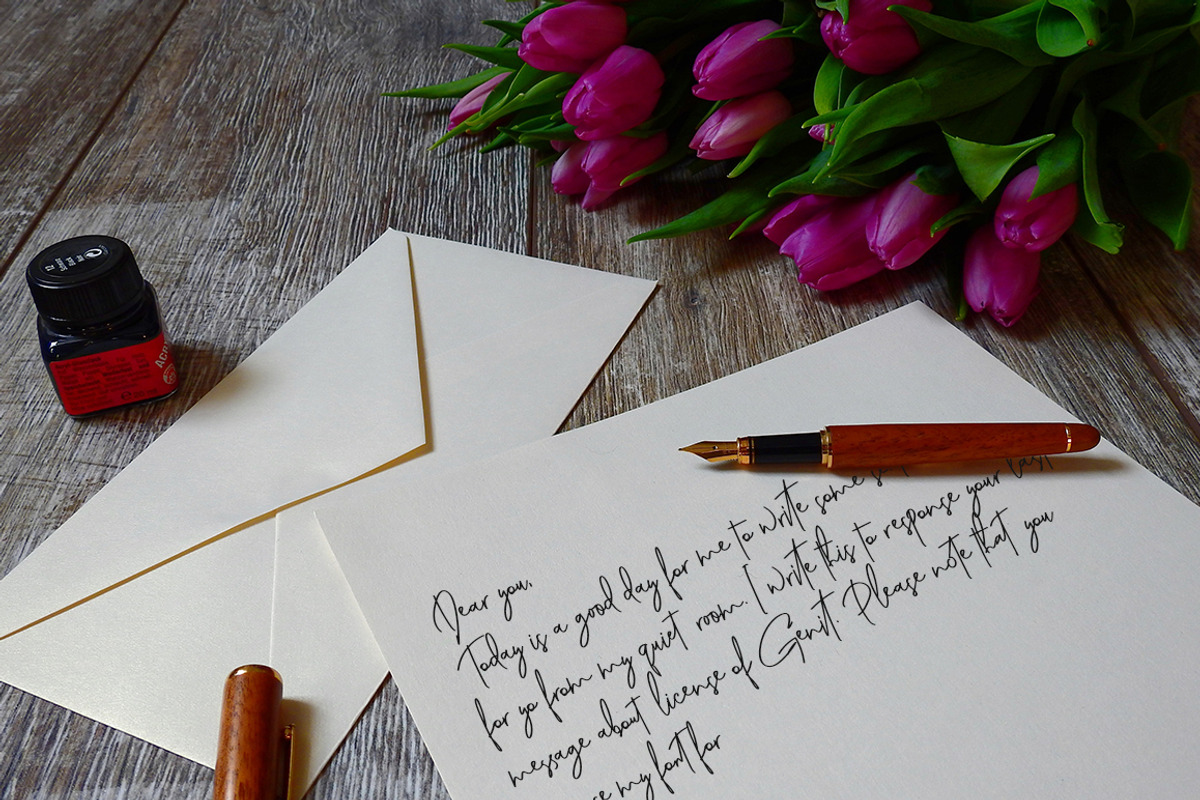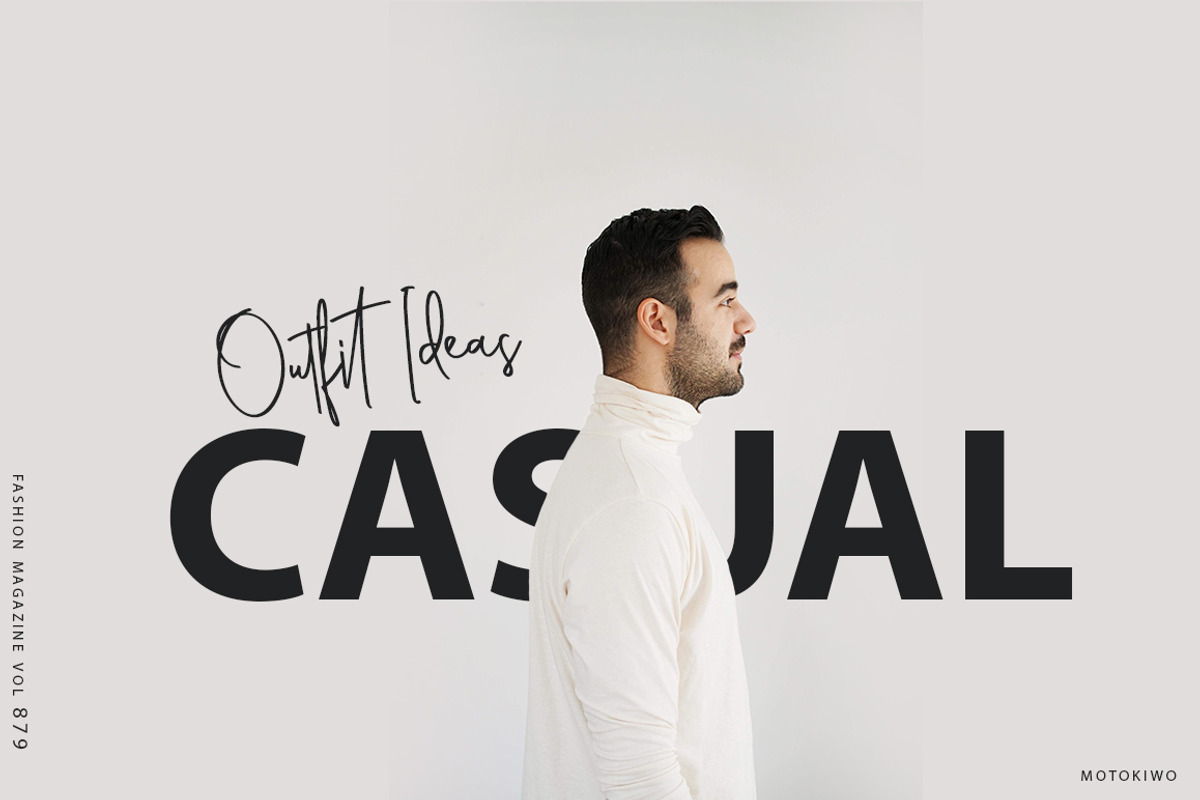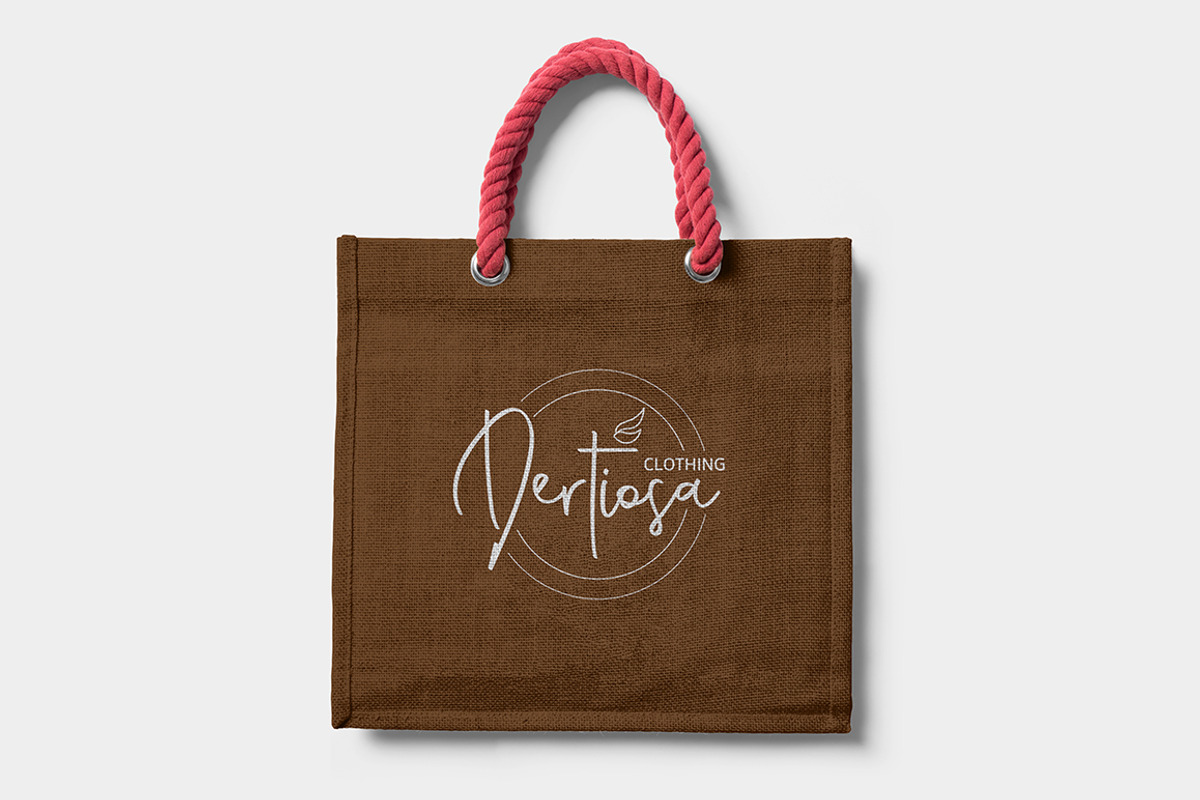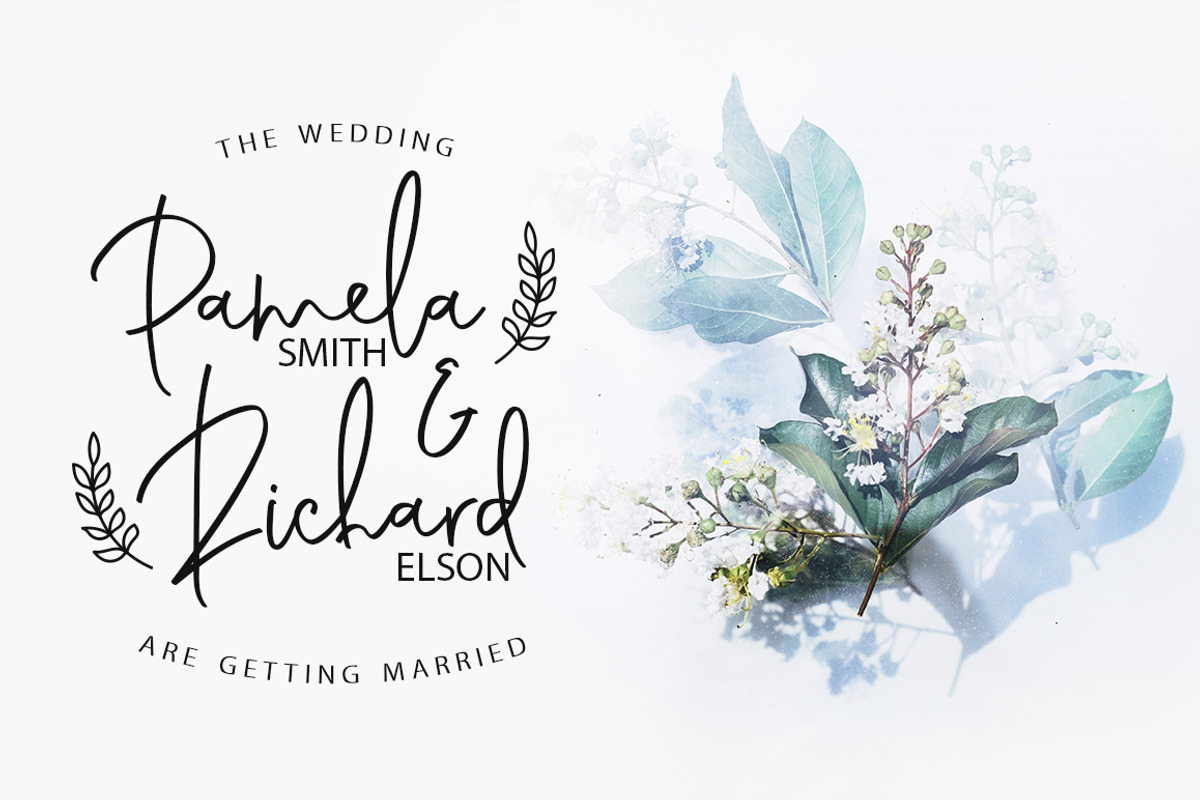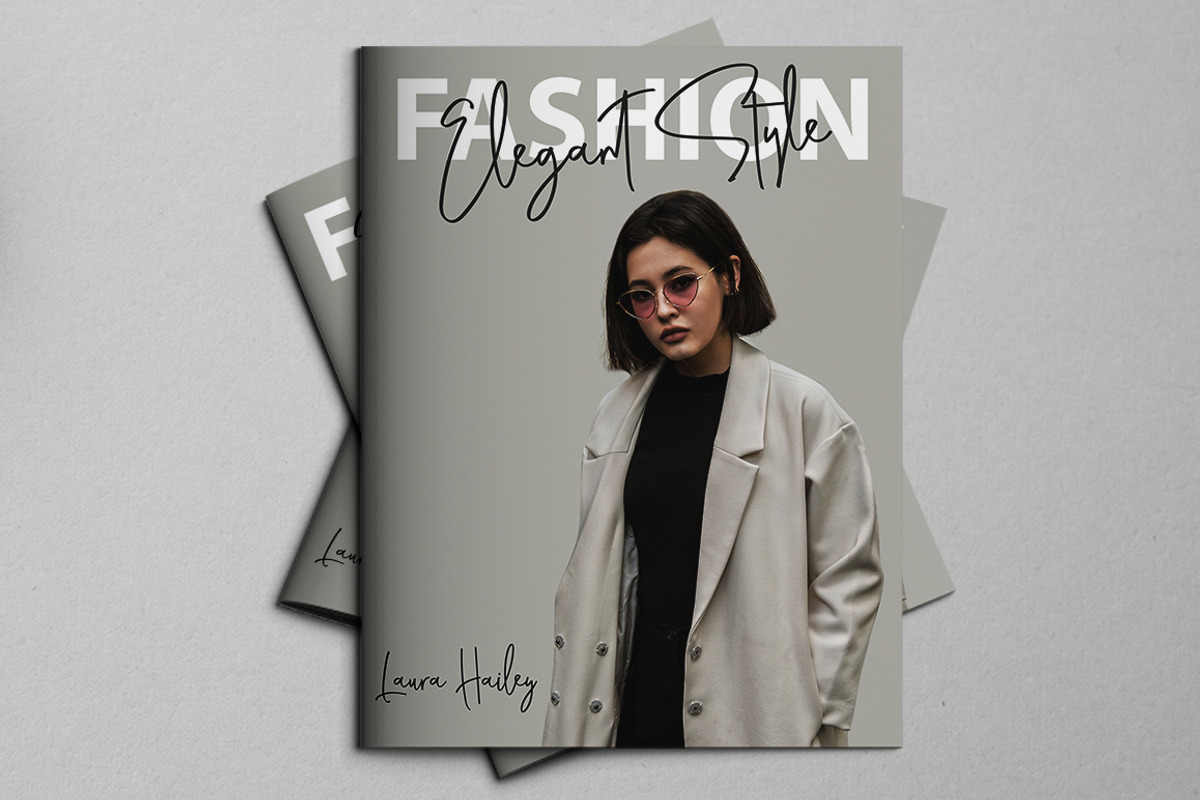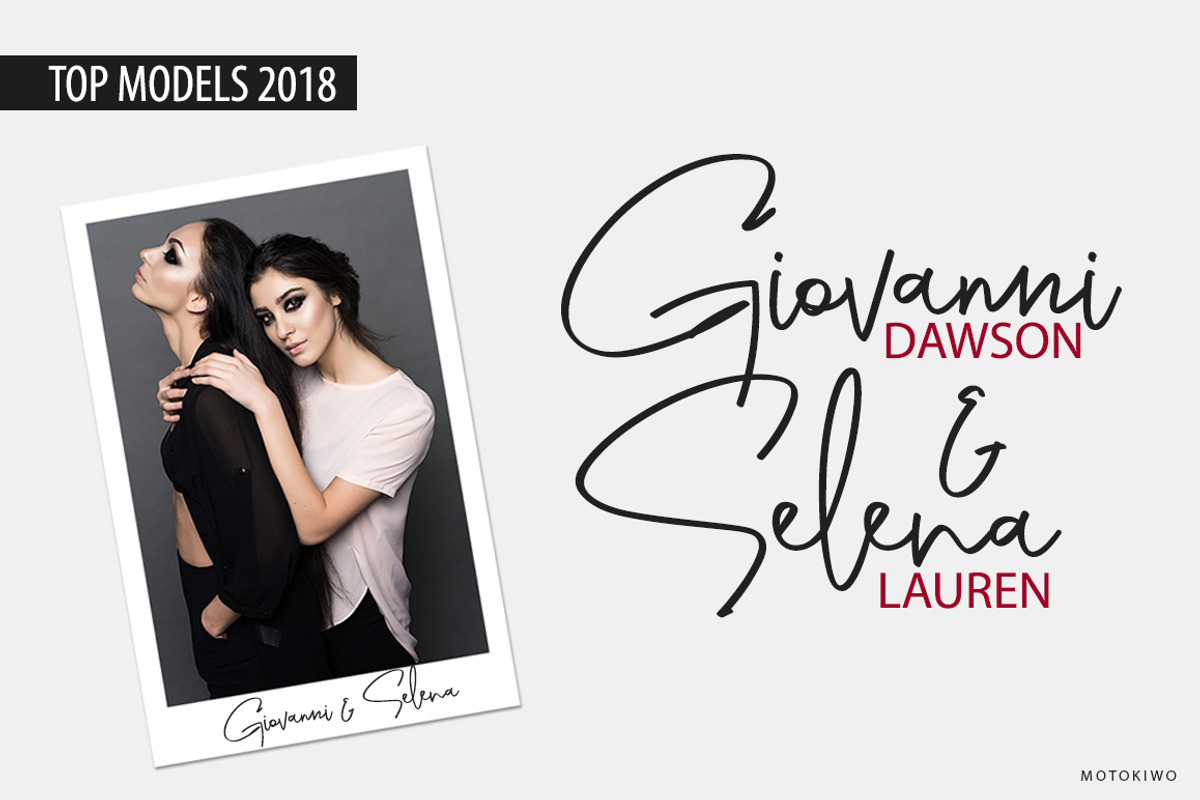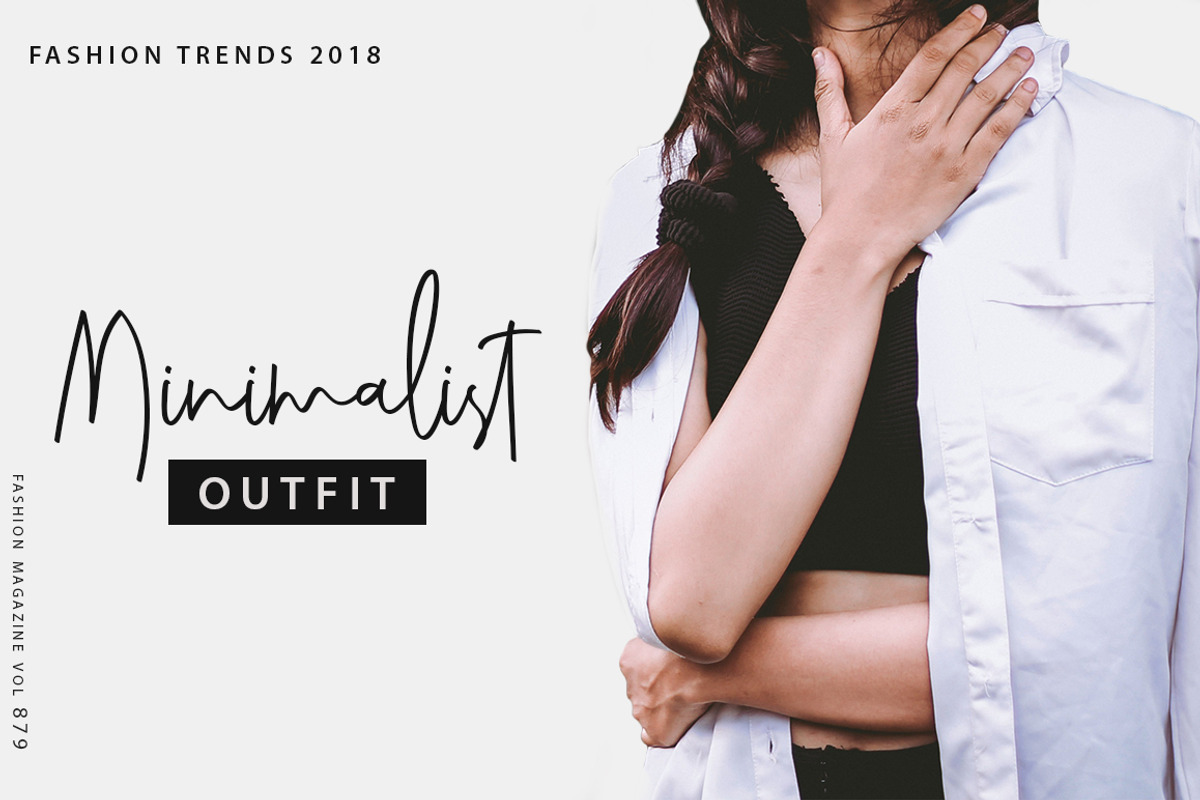
Genit - Classy Handwritten Font
Genit is classy, elegant, modern, and natural handwritten script font. Genit was made to handle every minimalist design projects. Minimalist design is recommended for professional business, just like Leonardo da Vinci said:
"Simplicity is the ultimate form of sophistication"
With signature style, Genit is ideal for business card, magazine, book cover, blog, branding, poster, headline, wedding, quote, also GREAT for logo. You can use this font for various design projects that need elegant feels.
Genit comes with uppercase, lowercase, numeral, accents, a large range of punctuation, and ligatures for character pair that most commonly used.
Ligatures: aa oo ee st sh at et it ot ut ll dd lt ht kt tl ss yl tt oot ott itt att ett utt rr nn pp ff nt ittle cc gg
Multilingual Characters: À Á Â Ã Ä Å Æ Ç È É Ê Ë Ì Í Î Ï Ð Ñ Ò Ó Ô Õ Ö Ø Ù Ú Û Ü Ý Þ ß à á â ã ä å æ ç è é ê ë ì í î ï ð ñ ò ó ô õ ö ø ù ú û ü ý þ ÿ ı Ł ł Œ œ Š š Ÿ Ž ž